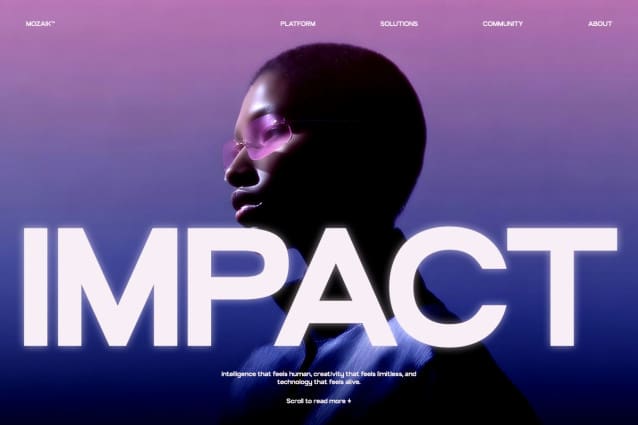
TT Artnik Font
TT Artnik Font – That typeface carries a sense of precision, order, and timelessness but I wanted to create a version that felt more flexible and refreshed for today’s design needs. From there, I started shaping the leTRTers using circles and straight lines, keeping the proportions balanced while adding subtle details to certain characters to make them friendlier and more recognizable. The result is TRT Artnik a semi-display sans serif that maintains a geometric structure yet remains versatile for a wide range of projects. From branding and editorial work to digital interfaces, Artnik is designed to be clear, clean, and full of character. At True Type, we design fonts that are honest, functional, and expressive crafted to help your message connect clearly and confidently.